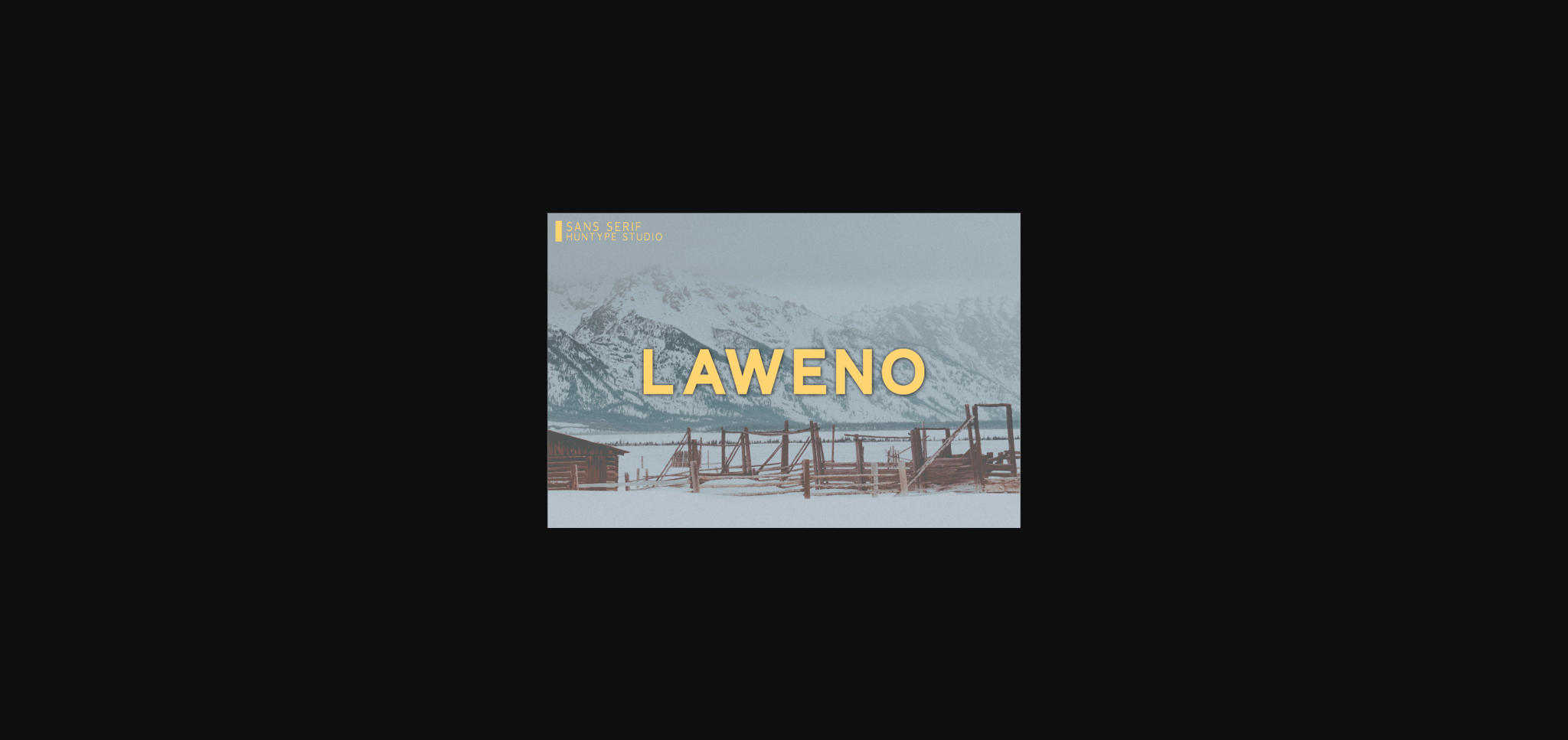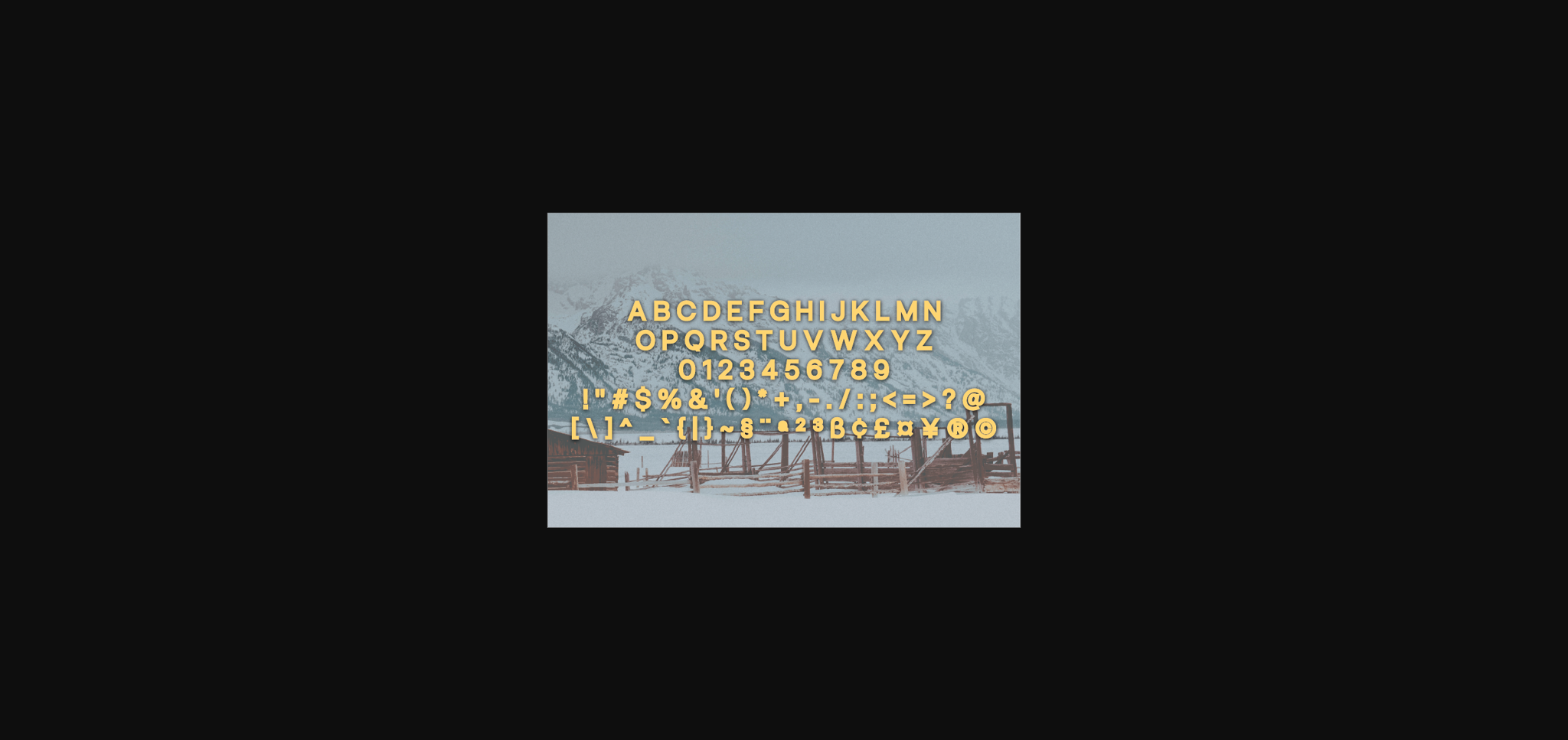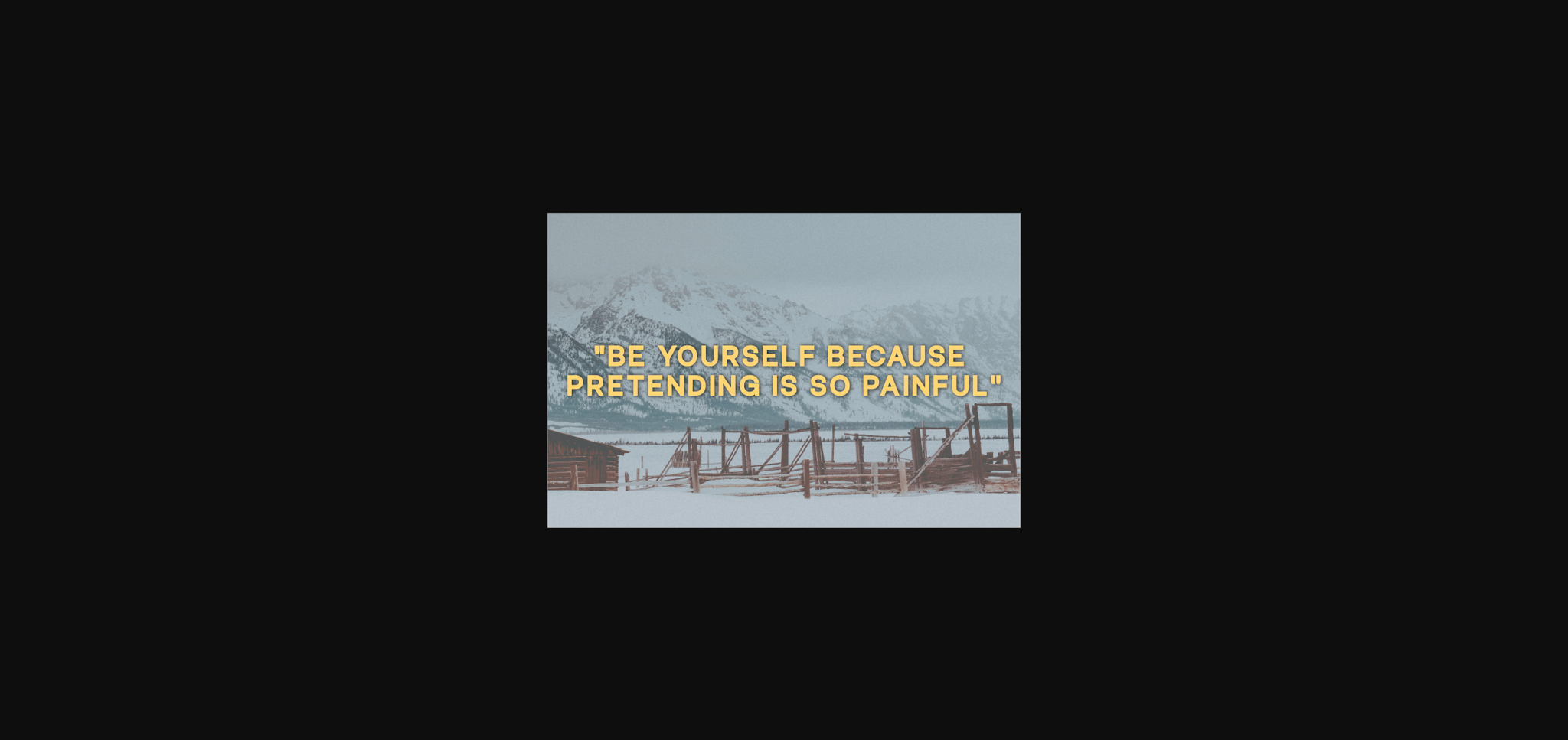
About Laweno Font
Laweno is a simple and thick lettered sans serif font. It works beautifully for logos, branding, and web headings. Add it confidently to your projects, and you won’t be disappointed.